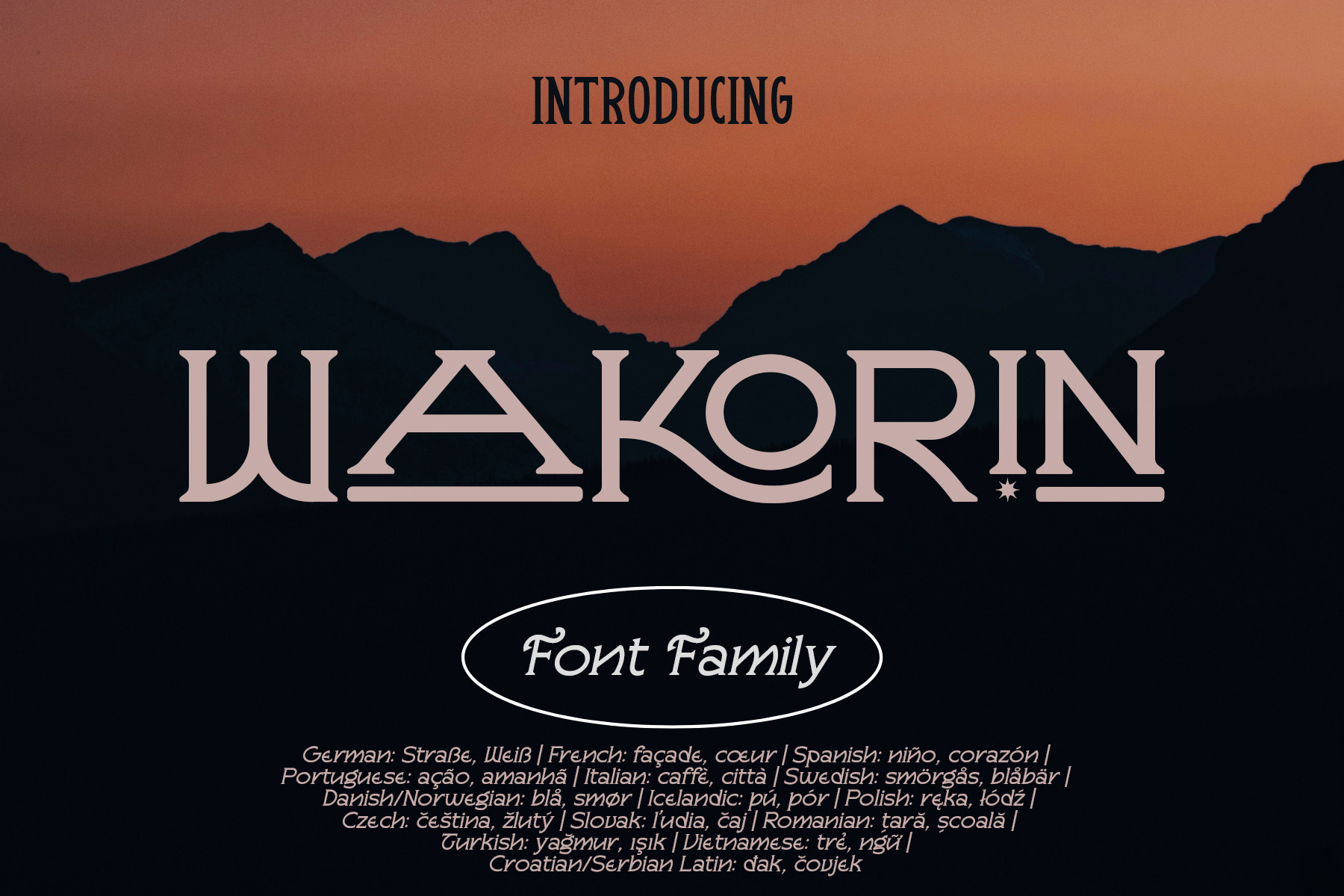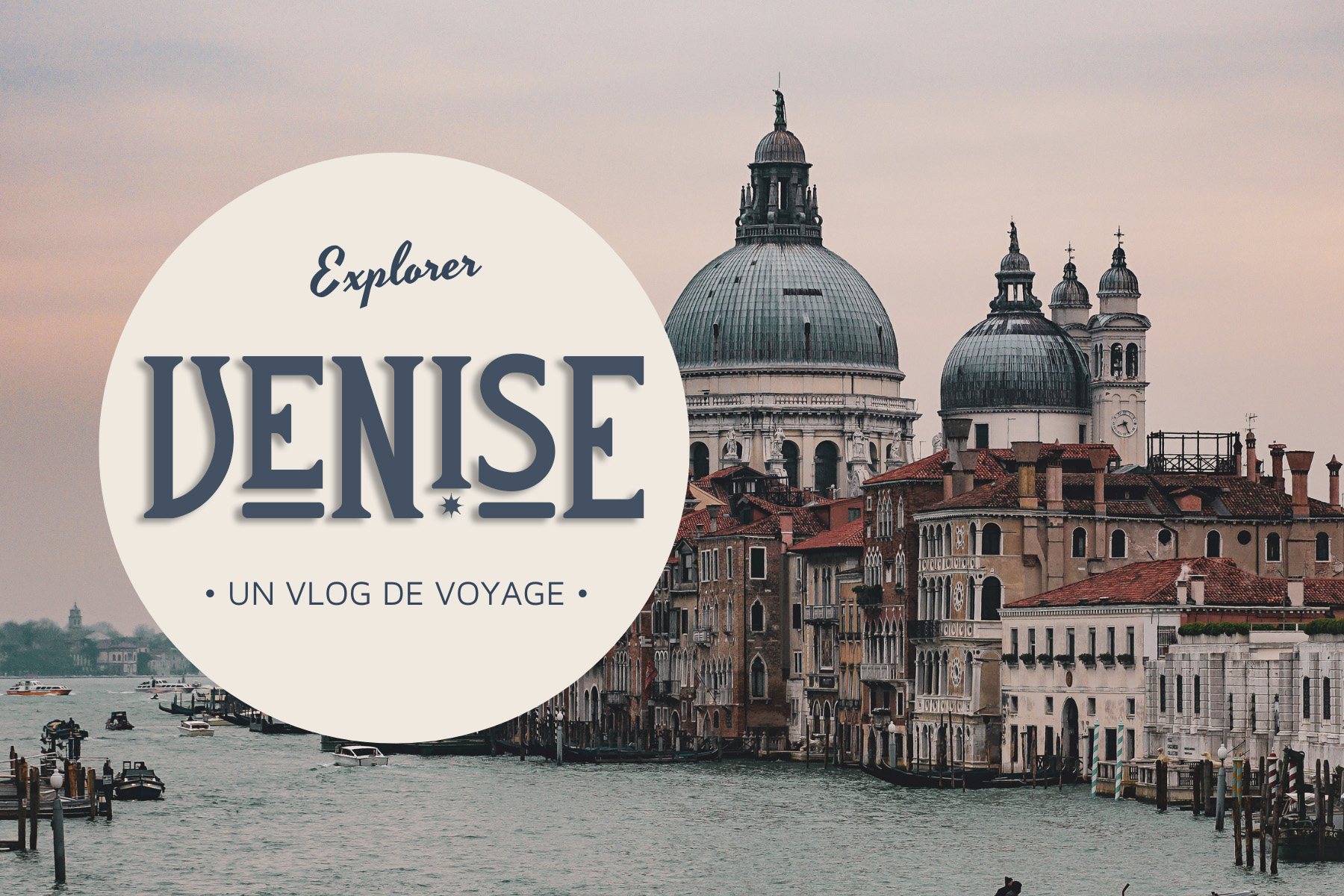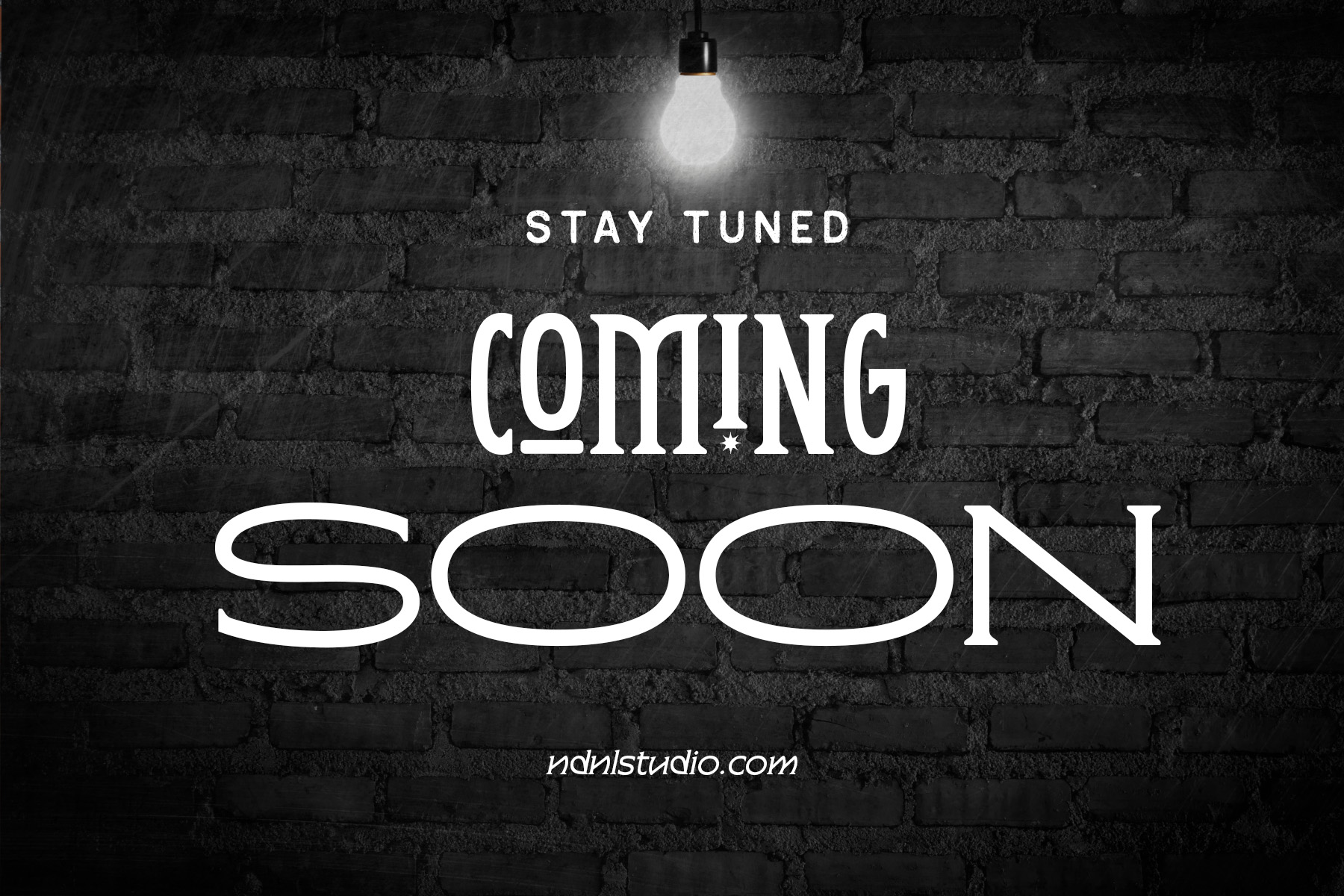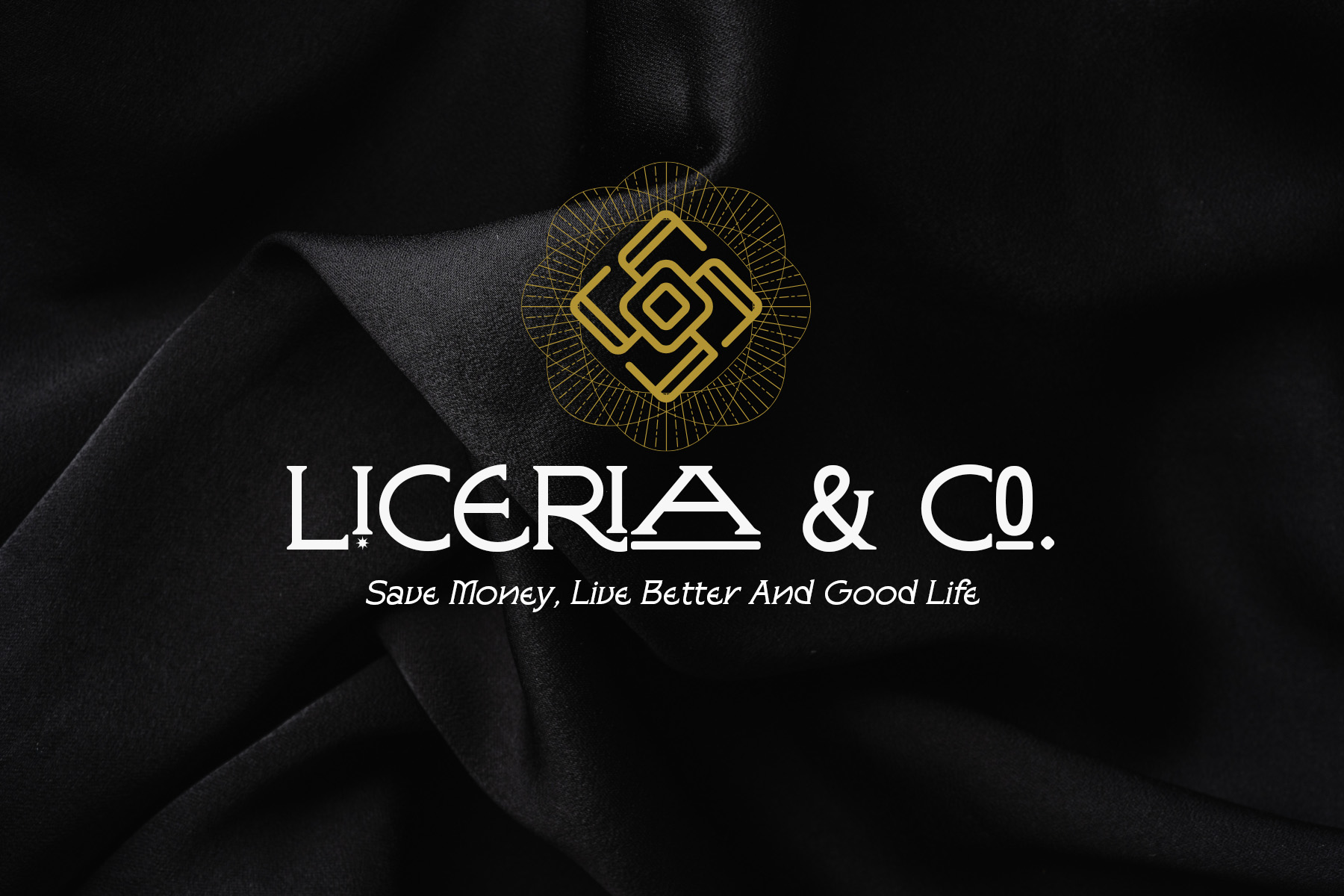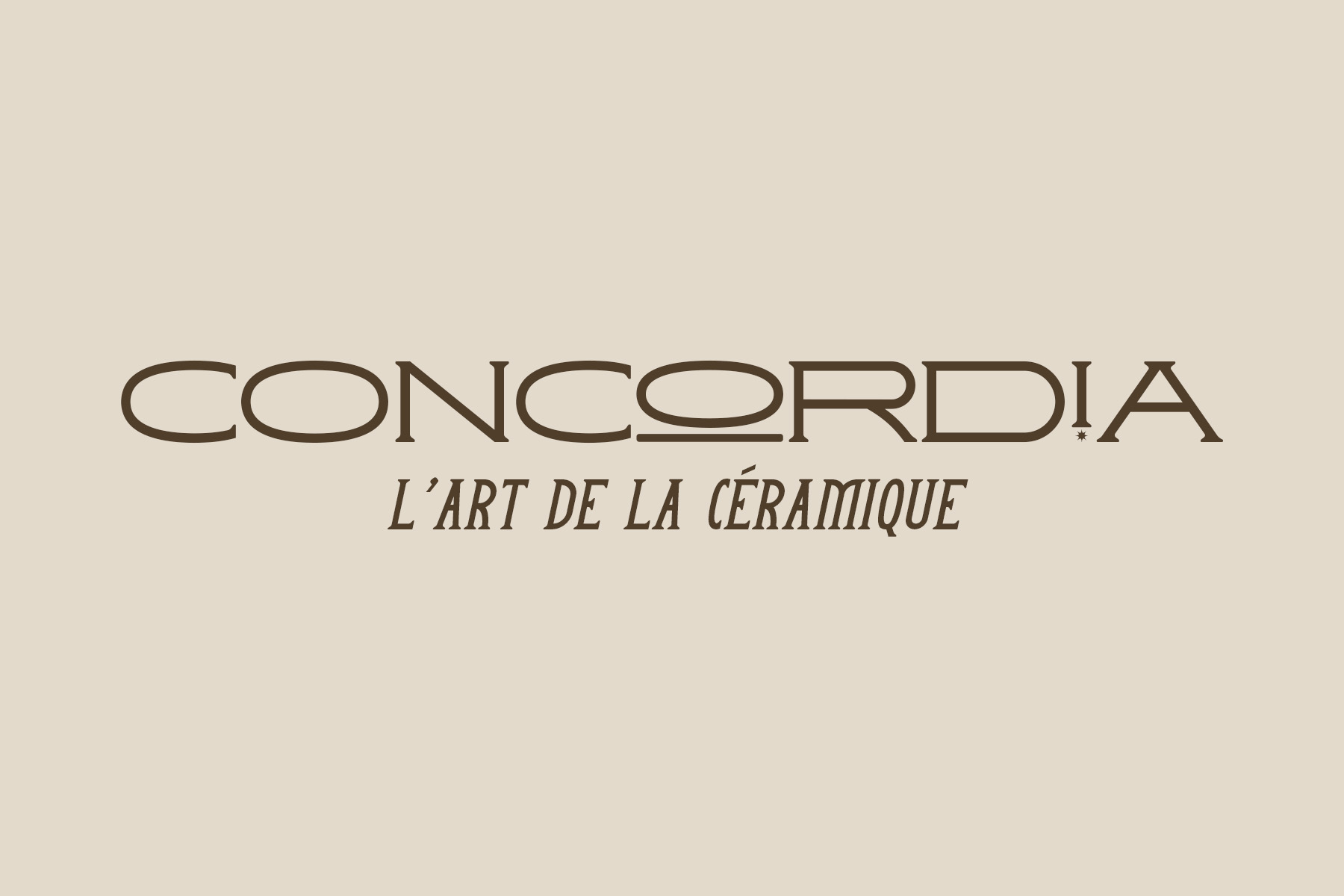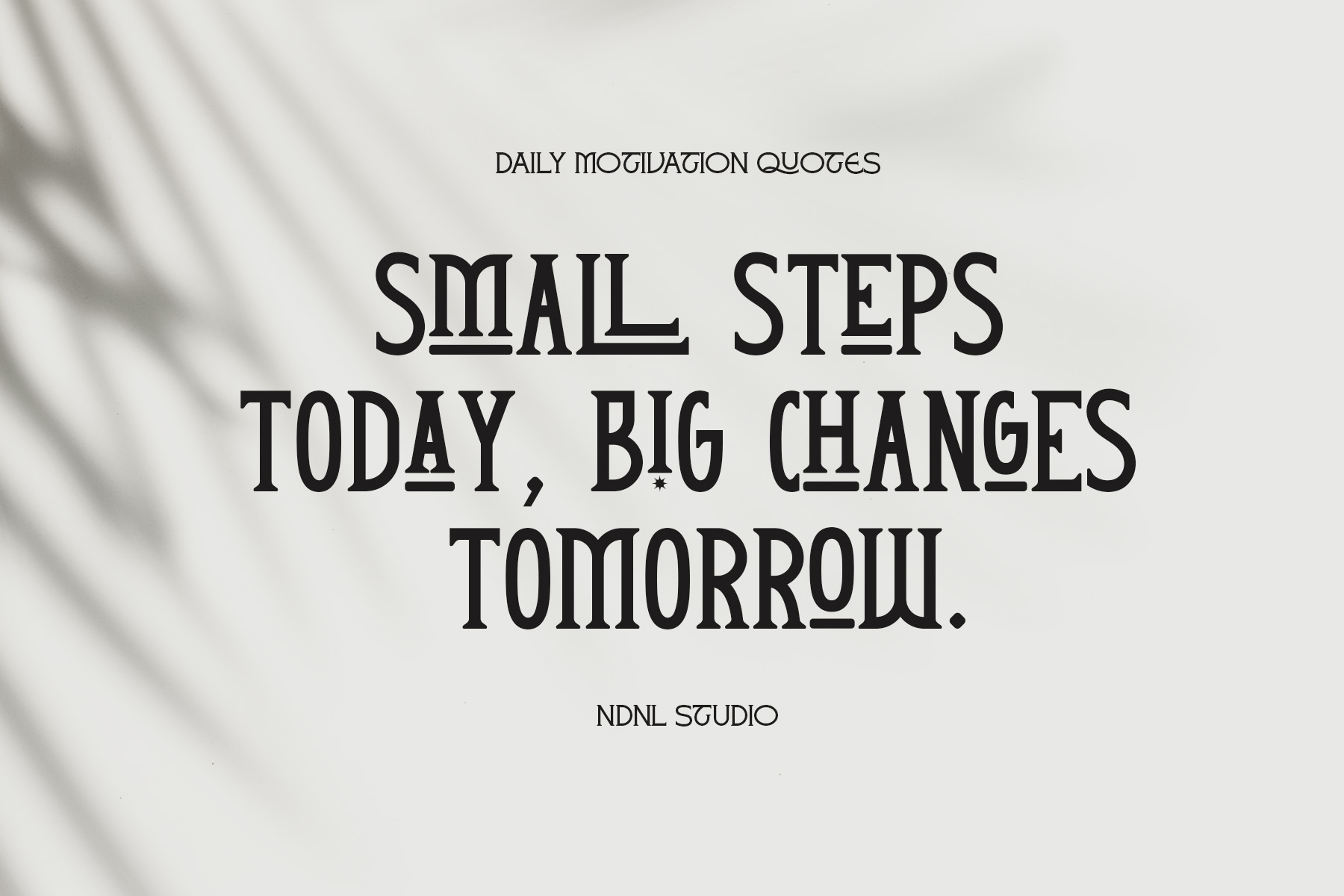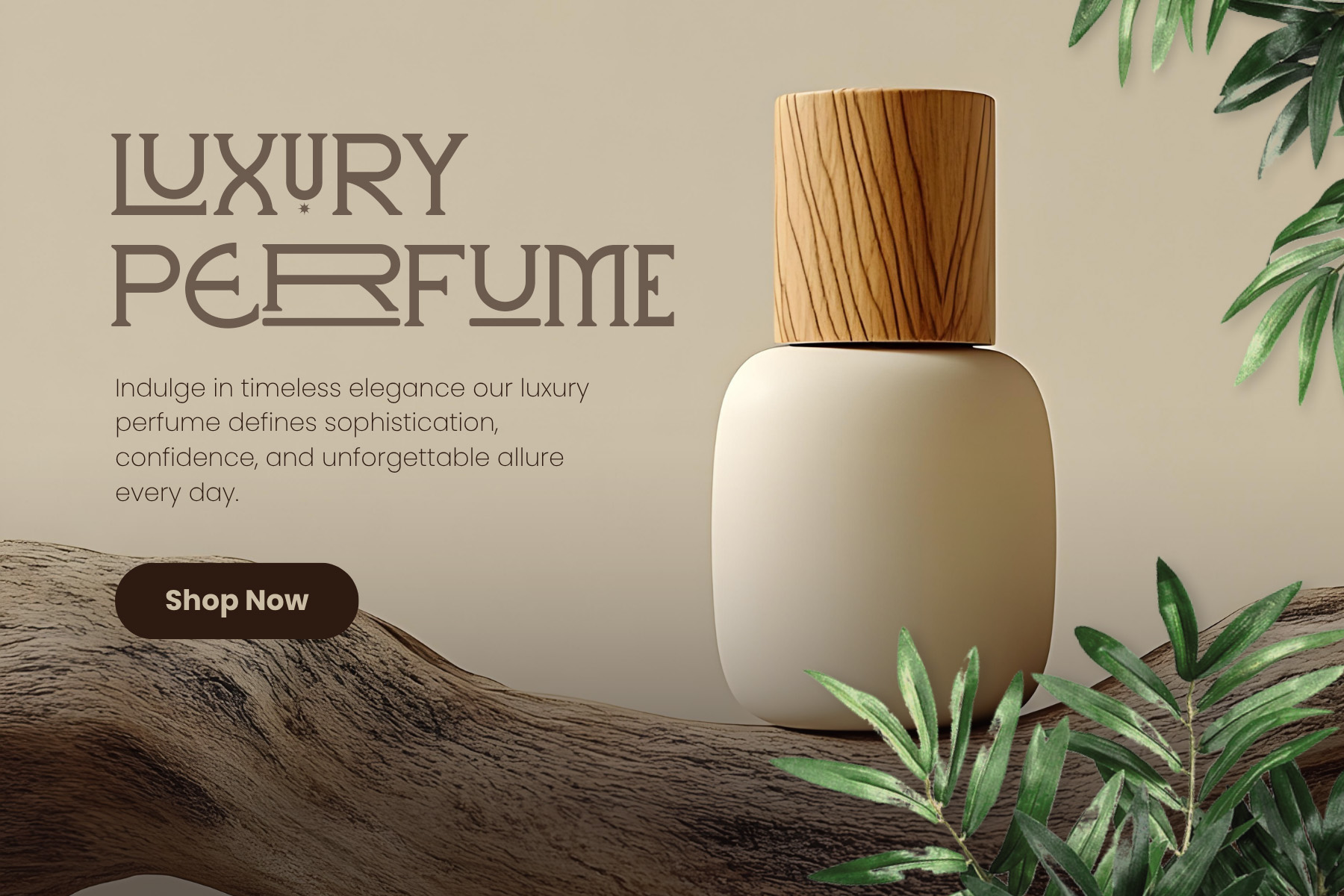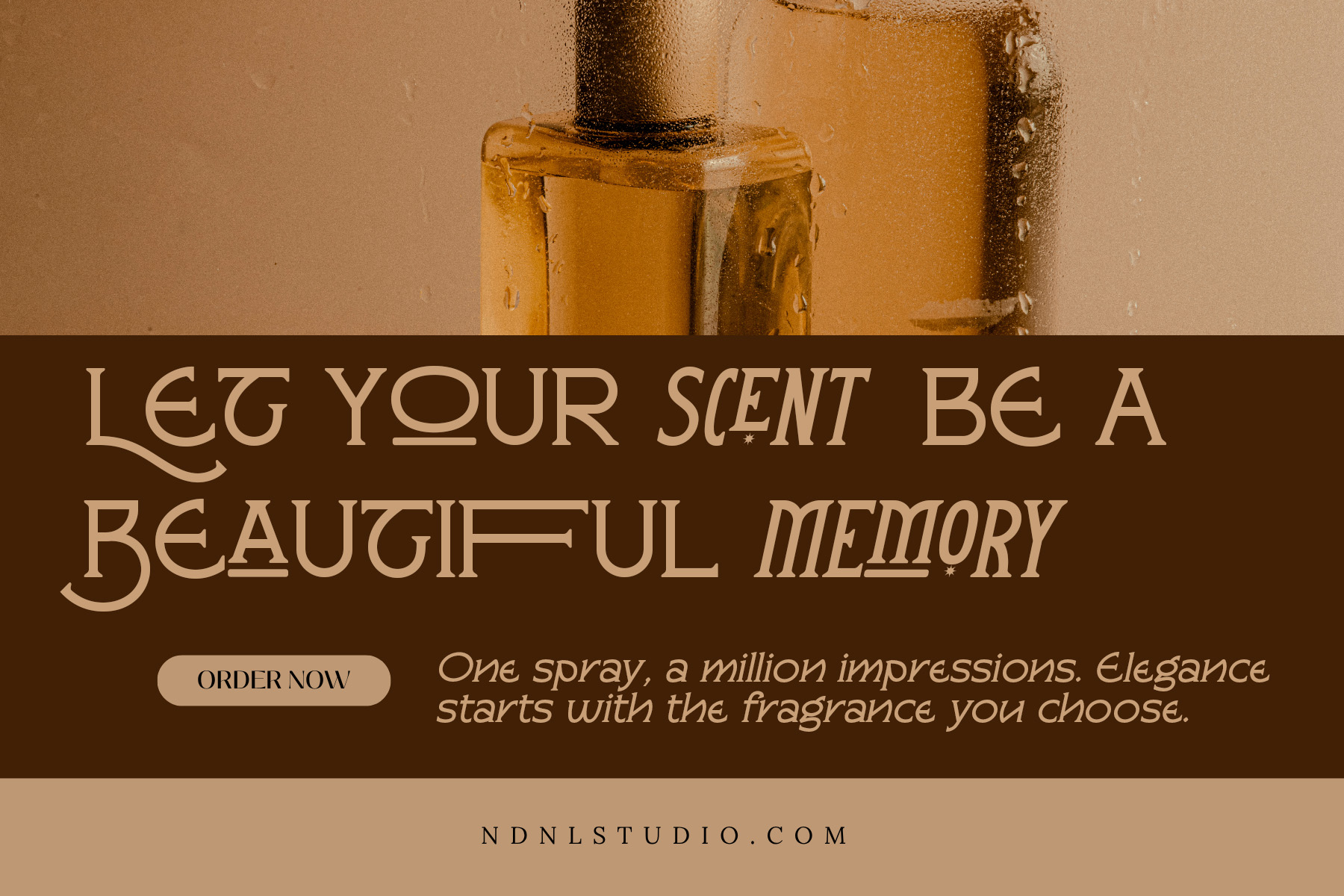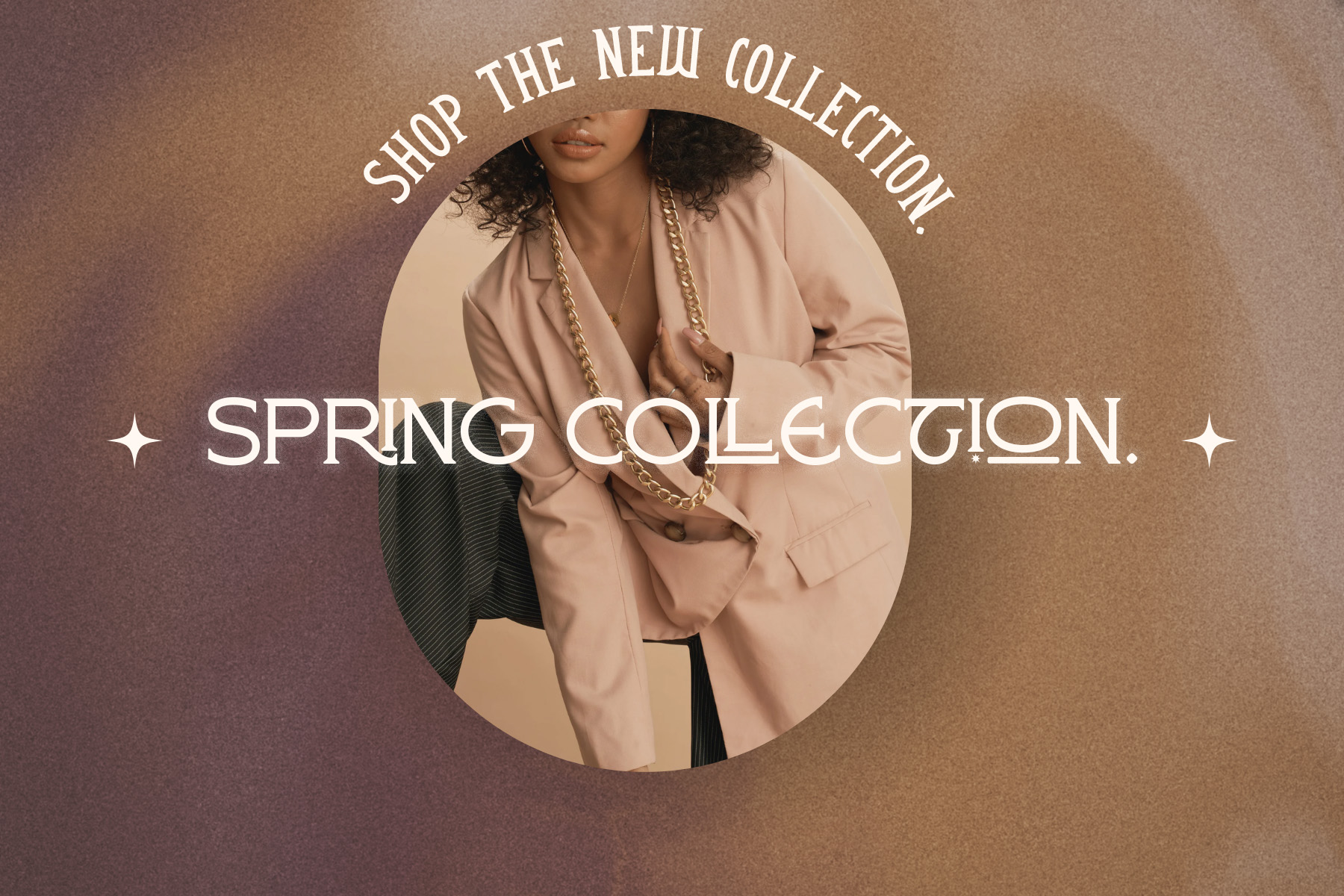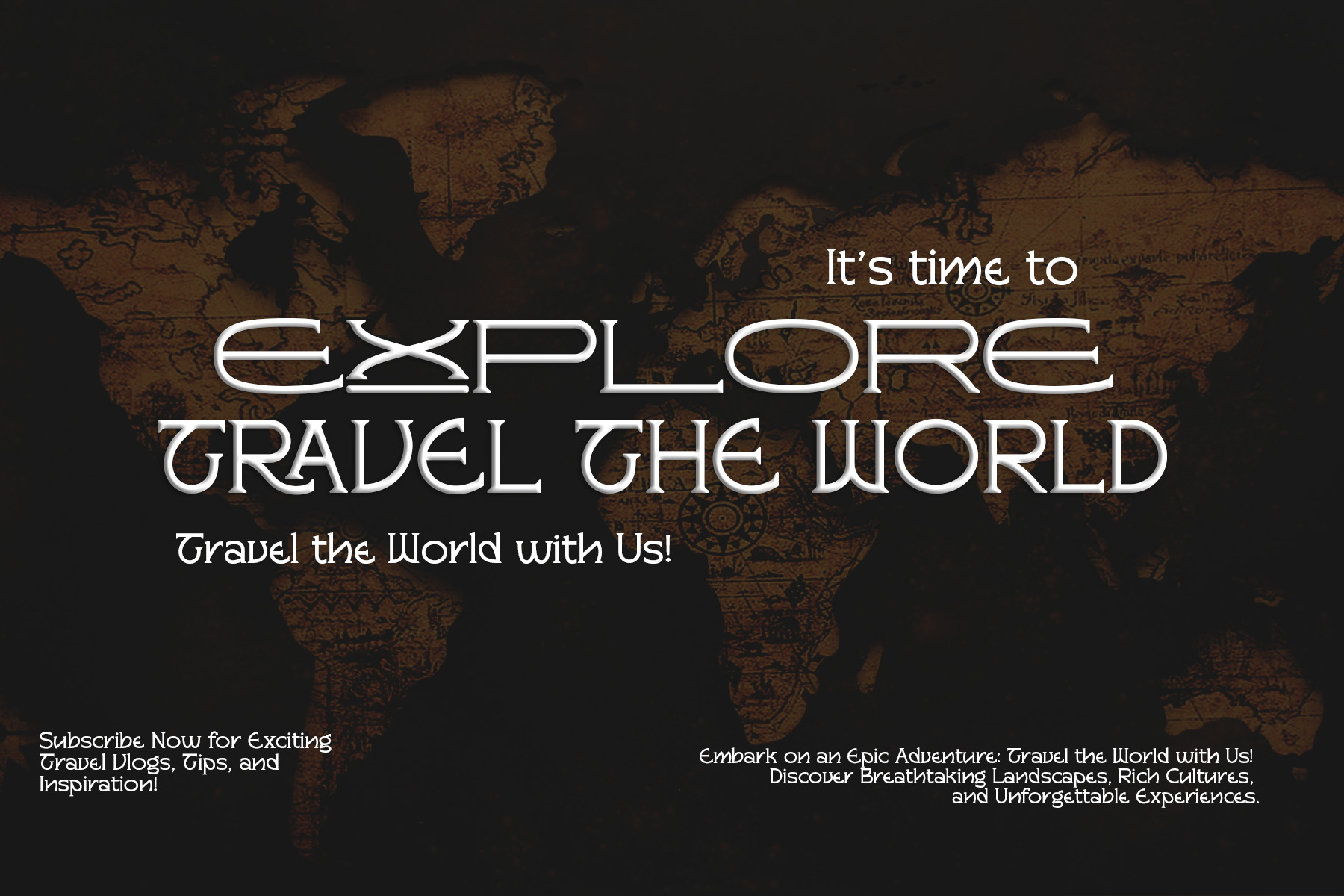
Introducing Wakorin!
Wakorin is an elegant and modern font family that strikes a perfect balance between classic charm and contemporary style. With its smooth curves, clean structure, and refined details, Wakorin delivers a sense of sophistication, softness, and distinctive character.
This font is suitable for a wide range of design projects such as branding, logos, posters, book covers, packaging, and editorial layouts. Notably, Wakorin offers multilingual support, making it ideal for international projects with a consistent and professional appearance.